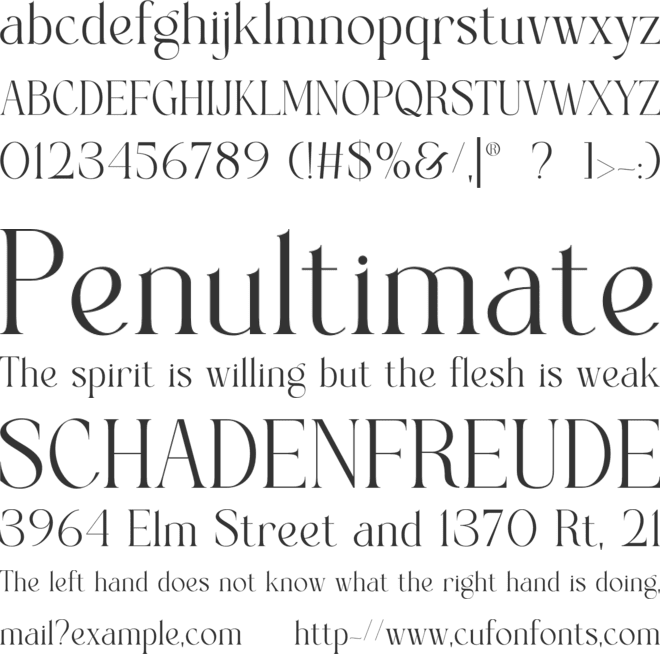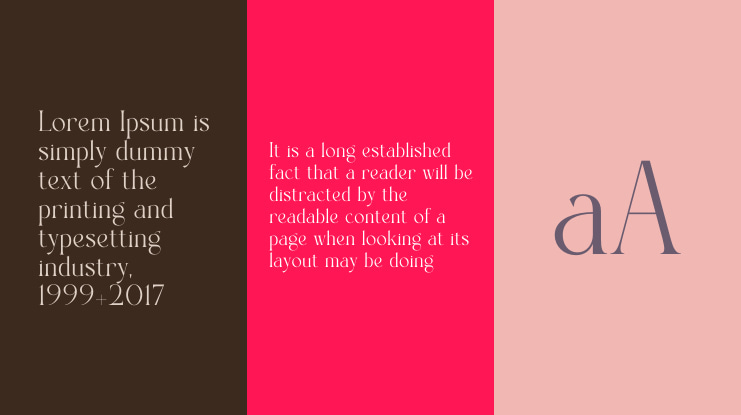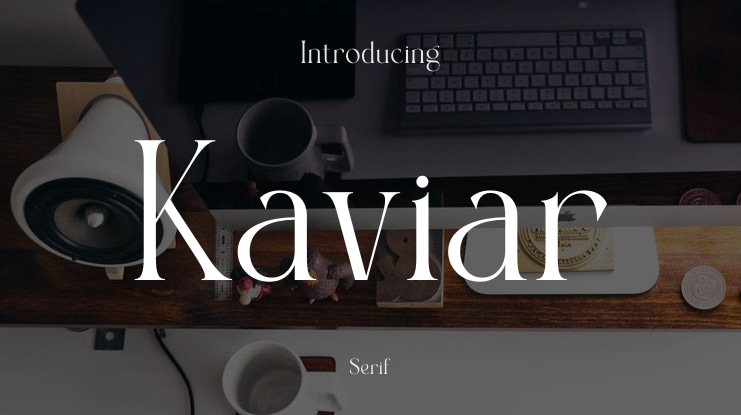
Kaviar Font
Introducing kaviar : An elegant and modern serif typeface. With its modern and minimalist appearance, kaviar brings a luxurious and clean style to your projects such as websites, modern logos, branding identities, social media quotes, wedding stationery and various other needs!